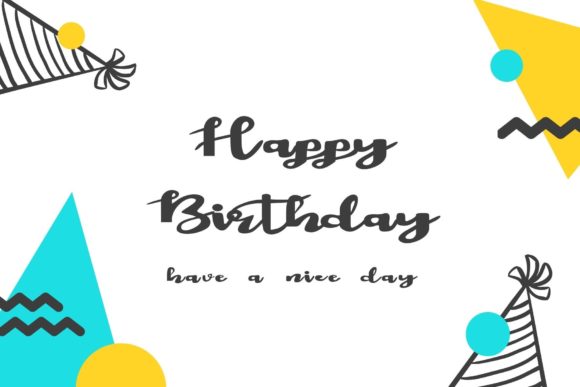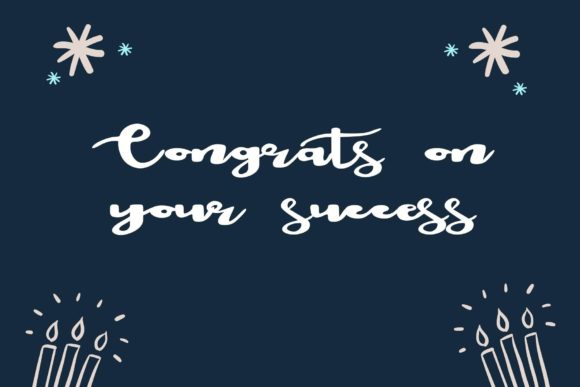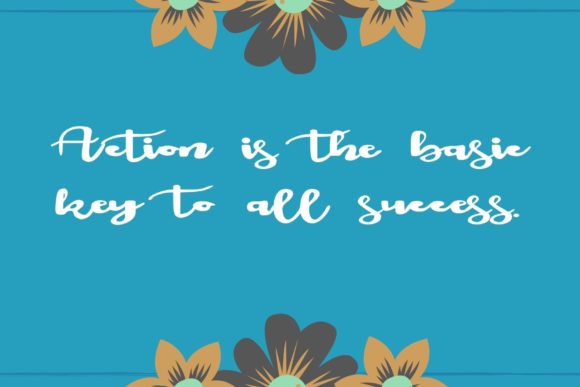
About Puried Font
“Puried” is a one-of-a-kind handwritten font that offers a stylish and distinctive look to a variety of design projects. With its unique letterforms and creative design, this font can be used across a range of applications, enhancing the visual appeal of your work.
When applied to logos and branding projects, “Puried” can provide a fresh and modern identity. Its individualistic style sets it apart, making it a great choice for businesses and brands that want to stand out with a unique visual presence.
For labels and packaging, “Puried” can add a touch of creativity and elegance. The font’s artistic and handwritten appearance can help capture attention and create a memorable impression on products and materials.
Photography watermarks and signatures can also benefit from the distinctive charm of “Puried.” Its unconventional letter shapes and flowing strokes can add a personalized and artistic touch to your work, elevating the overall aesthetic.
Special events such as weddings, parties, and other celebrations can be enhanced with the use of “Puried.” Its creative and stylish script can be integrated into invitations, decorations, and various event materials, bringing a unique and eye-catching element to the design.
With its wide range of glyphs and characters, “Puried” offers versatility and customization options. Its ability to adapt to different design contexts and projects ensures that it remains a valuable asset for creative endeavors that require a beautiful and distinctive script font.
In conclusion, “Puried” is a stylish and incredibly unique handwritten font that has the potential to transform various projects into visually captivating and memorable pieces. Its versatility, creative design, and distinctive appeal make it a suitable choice for logos, branding, labels, photography, special events, and more.